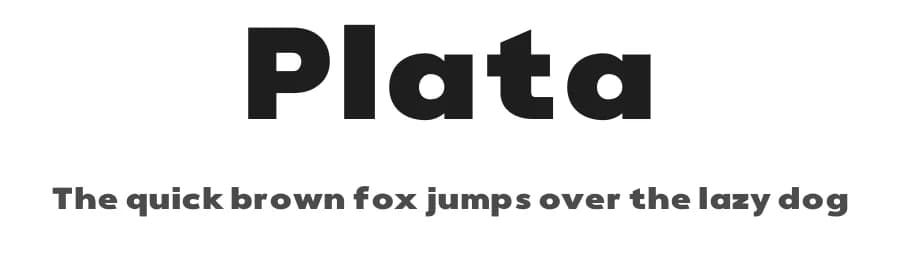
About Plata Font
Plata font is a humanist display font with unique authentic value. available with 4 weights will add value to the authenticity of this font. generally suitable for use in logo design, packaging.
- Heavy, Clean, Modern, Basic
Plata Font is a versatile sans-serif font that works for both headings and body text. Pair it with a contrasting serif or slab serif font to add visual interest and a clear distinction between titles and body copy.
Plata Font